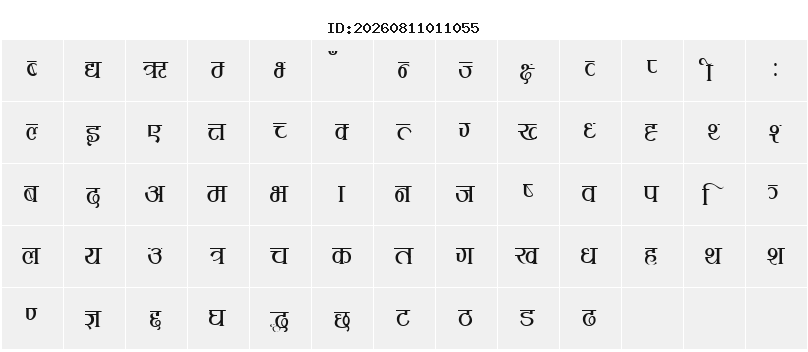
Rukmini Preview
• Font Name: Rukmini
• Full Font Name: Rukmini
• Version: 1.0 Wed Aug 04 21:16:32 1993
About Rukmini.ttf
Rukmini.ttf is a modern, elegant sans-serif font designed for ultimate readability and visual harmony. Perfect for branding, headlines, web design, and print materials.